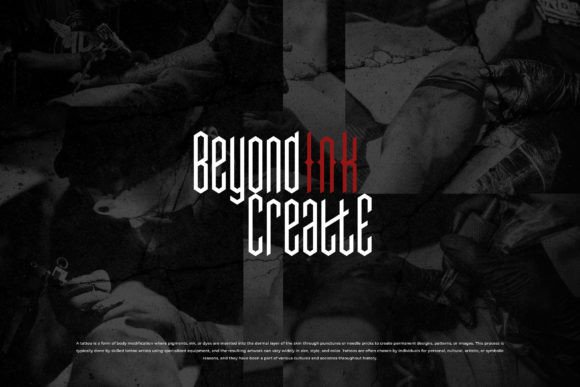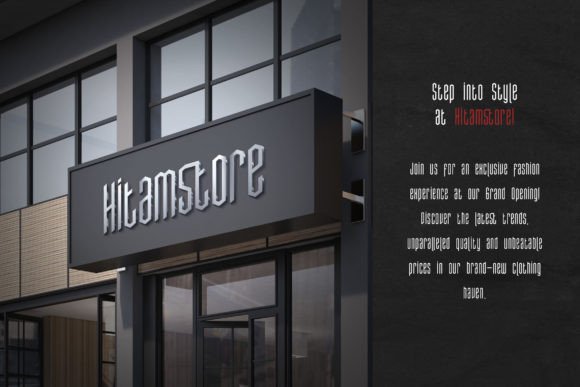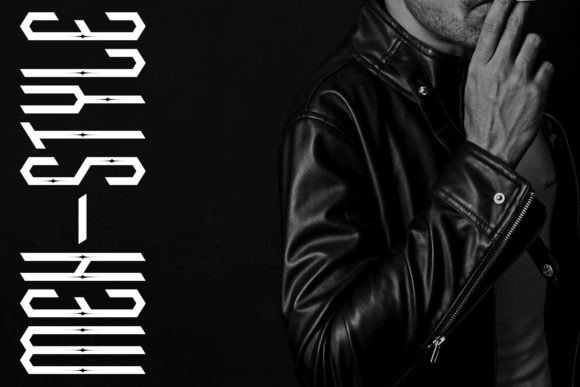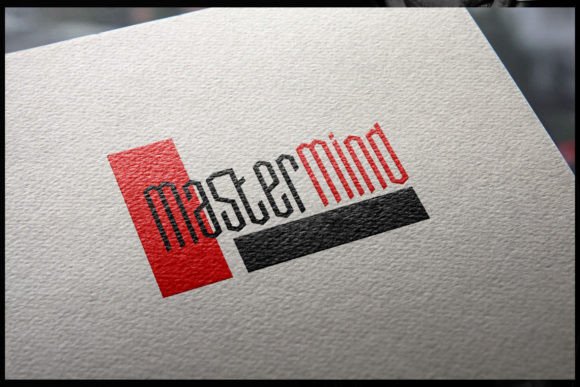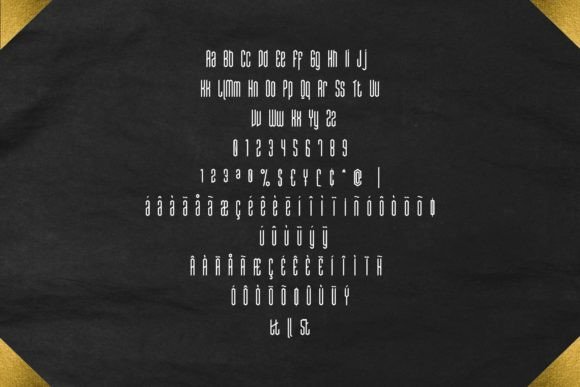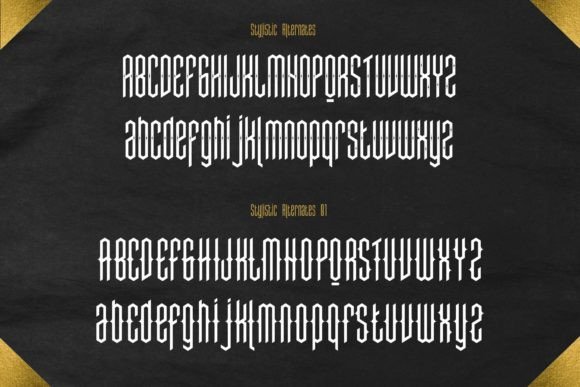
Introduction to Obsidis Font
Discover the bold allure of Obsidis, a captivating display font infused with the timeless character of Blackletter Style.
This masterpiece offers a refreshing blend of traditional appeal and modern aesthetics Whether youโre stamping a gothic presence on your design or enhancing your work with an underscore of vintage charm, Obsidis is the perfect font to reflect your creative visions.
Key Features of Obsidis Font
Why Choose Obsidis Font?
Obsidis Font offers exceptional quality and versatility, making it a valuable addition to your design toolkit. Whether you’re creating for personal projects or commercial use, Obsidis Font delivers professional results.